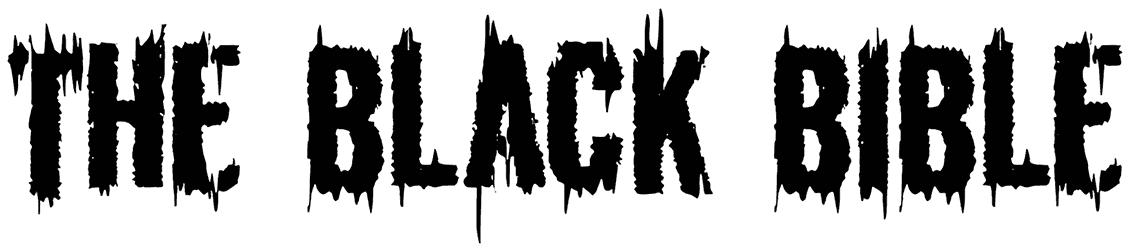
The Black Bible Font
Inspire the viewers with your all-time appealing, scary typography, which you can run professionally by employing the Black Bible font! This distinctive horror font with a melting and messy face will add an urban, dread feel to your fantastic design.
Taking on the nature of the wicked lettering while providing a nice possibility for designing Halloween posters, games, headings, and others. It’s precisely what you lack to be specific, despite lacking lowercase, it leaves no stone unturned in spotlighting your words.
The Black Bible